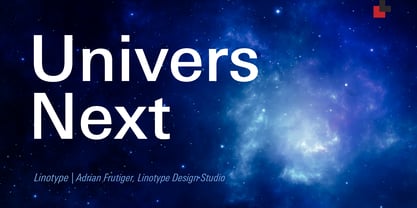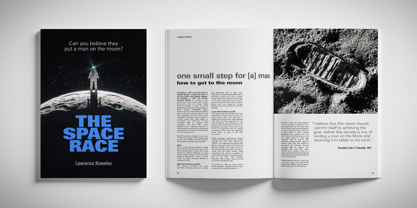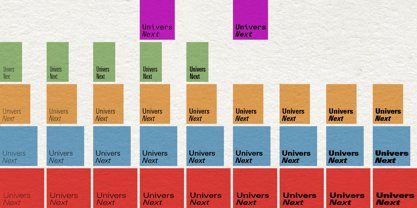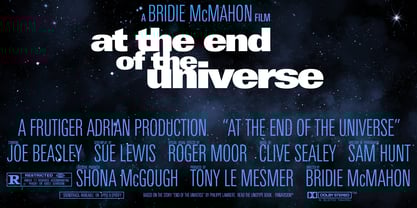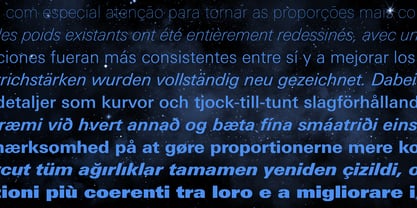
Univers® Next
by Linotype
The Univers Next Font Family was designed by Adrian Frutiger, Linotype Design Studio and published by Linotype. Univers Next contains 63 styles and family package options. More about this family
Linotype Univers is a completely reworked version of the original Univers typeface family designed by Adrian Frutiger in 1957. After a long process of painstakingly detailed revision, Frutiger and the design staff at Linotype completed this large joint project in 1997. The result: a brilliant and cohesive font family of 63 weights and styles including the 4 monospaced typewriter weights. All the existing weights were completely redrawn, with careful attention paid to making the proportions more consistent with each other and improving fine details such as curves and thick-to-thin stroke ratios. The family was expanded from 27 to 63 weights, providing a much larger framework to graphic designers for choosing just the right style. The bold and condensed weights were reworked for improved legibility and on-screen application. The stroke weights were revised for consistency within each face as well as in relationship to the other weights. By following Frutiger's original designs, the humanist character of the sans serif Univers now comes through more distinctly. T he systemized numbering system has also been updated. With its sturdy, clean forms Univers can facilitate an expression of cool elegance and rational competence. In fact, the strong familial relationships between all the styles and weights make it a serviceable choice for large graphic design projects that require versatility with consistency. Frutiger was successful in staying true to his initial aims; the new Linotype Univers does indeed work in longer texts as well as for display settings. In 2010 the typeface family was extended and renamed into a more logical naming of "Univers Next" to fit better in the Platinum Collection naming. Univers Next Variable are font files which are featuring two axis and have a preset instance from Light to Heavy and Condensed to Extended. Univers® Next font field guide including best practices, font pairings and alternatives.
Designers: Adrian Frutiger, Linotype Design Studio
Foundry: Linotype